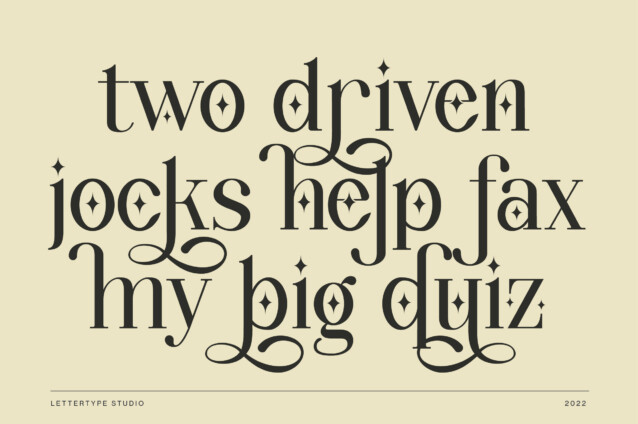
Wondernesia Font
Wondernesia Font is a nostalgic and modern serif in duo styles, nostalgic and modern.
You’re searching for a nostalgic 90s 80s font but want a modern one too? wondernesia is here to fulfill those two things. Wondernesia is meaning wonderful and Indonesia, Indonesian is wonderful with all ethnicity, nation, culture, religion, and natural beauty. You need to visit Indonesia next time to feel all of it ๐Ÿ™‚
This font will be perfect for your logo design, branding, clothing, signage, posters, wedding invitations, cosmetic or fashion and so much more!
Wondernesia will help your project or your brand to have a nostalgic and modern look at the same time.
Diki Pradipta Tri Atmojo – Lettertype Studio